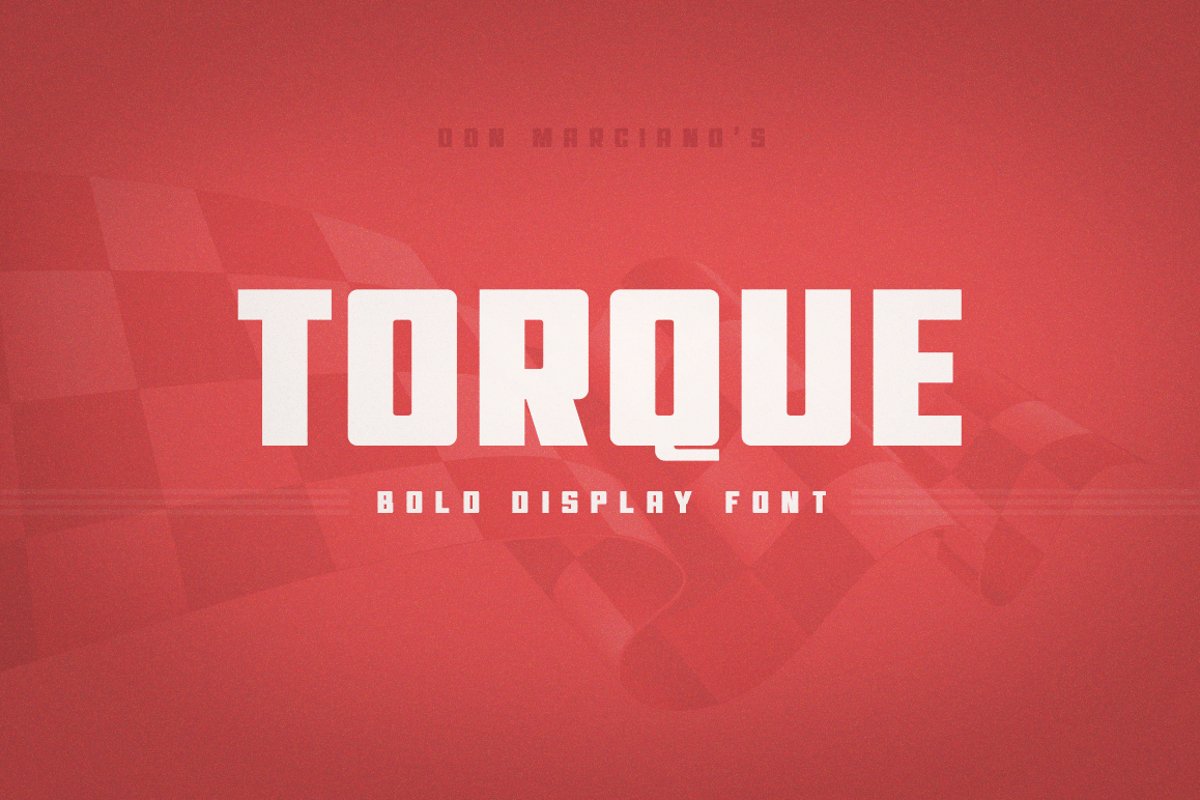
Torque Bold
Torque-Bold
Torque is a bold and strong display font, design for a premium high-end car service repair shop as the backbone concept; specially created for brand development as the principle font. An OTF file format with a total count of 386 glyphs, upper cases only. I’ll appreciate your support if possible. Enjoy!